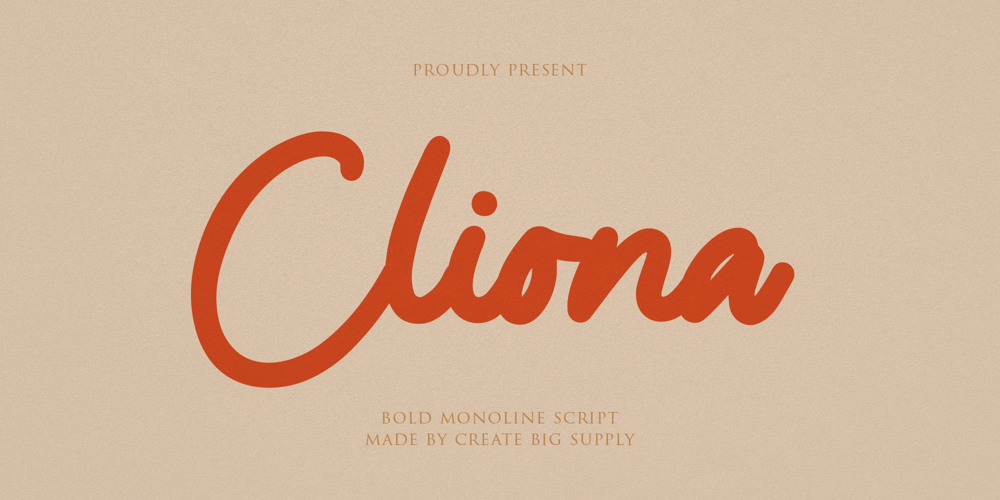
Cliona Font Family was designed by Irpan Maulana and published by Create Big Supply. Cliona contains 1 styles and family package options. Cliona Bold Script. Perfect for all your design needs such as branding designs, logos, and more. This font is PUA encoded which means you can access all the amazing glyphs and ligatures easily Features: Uppercase & lowercase Numbers and punctuation Multilingual Ligatures PUA Encoding Full Character Set!”#$%&'()*+,-./0123456789:;<=>?@ABCDEFGHIJKLMNOPQRSTUVWXYZ[]^_`abcdefghijklmnopqrstuvwxyz{|}~¡¢£¤¥§¨©ª«®¯°±²³´¹º»¿ÀÁÂÃÄÅÆÇÈÉÊËÌÍÎÏÑÒÓÔÕÖרÙÛÜÝÞßàáâãäåæçèéêëìíîïñòóôõö÷øùúûüýþÿ•†‹›‒–ˆˇ˜€“‘ŸœŒš˚”’ıžŠ„‚